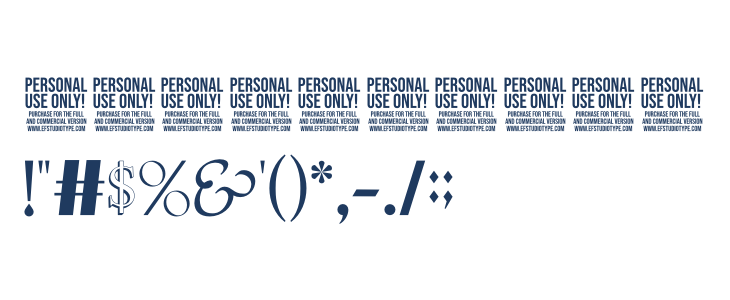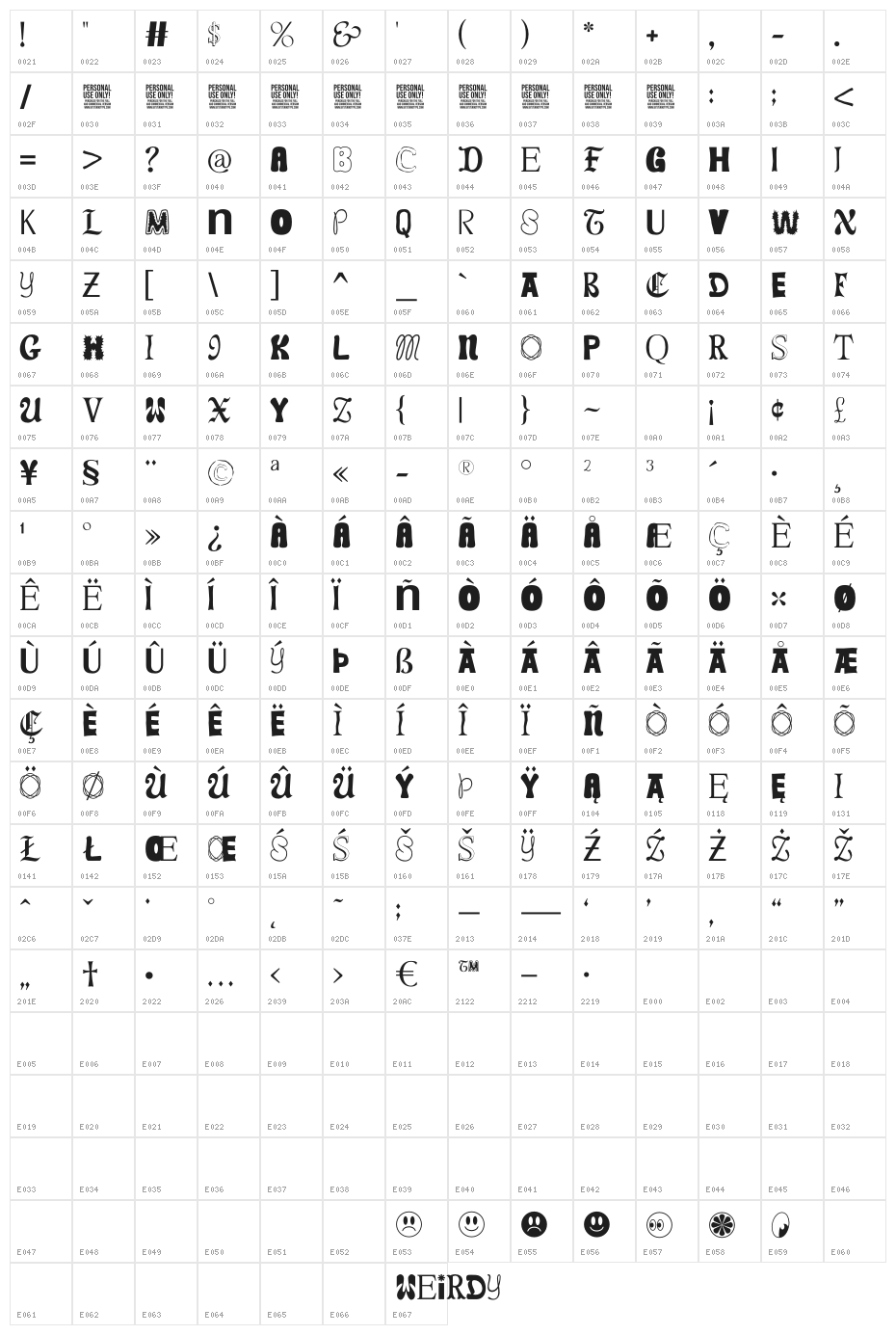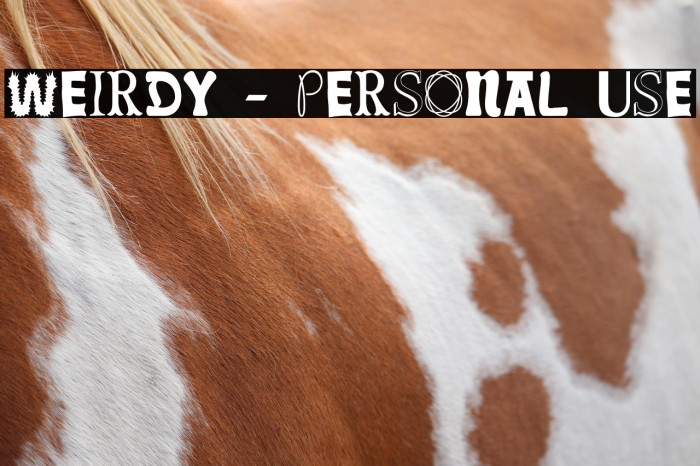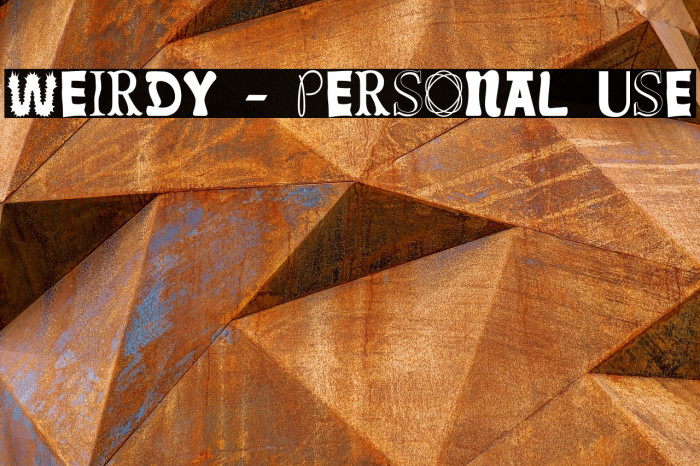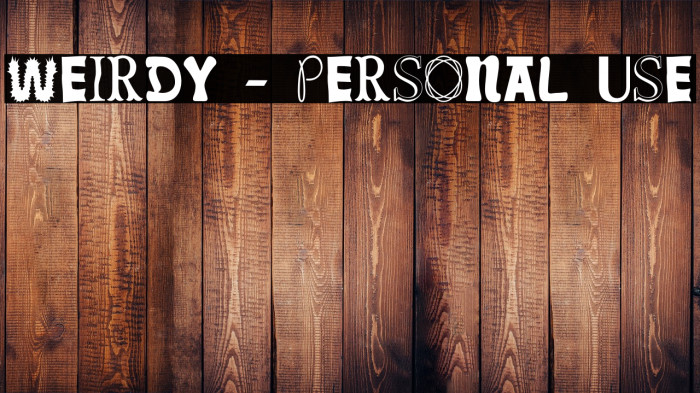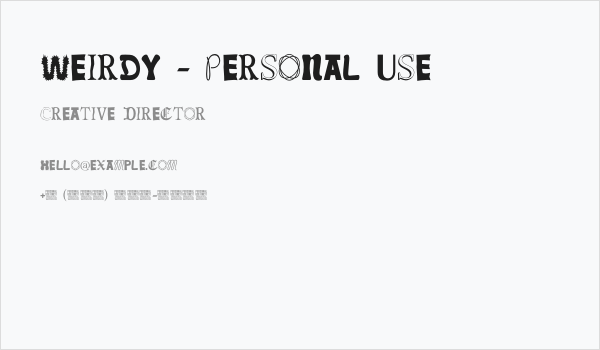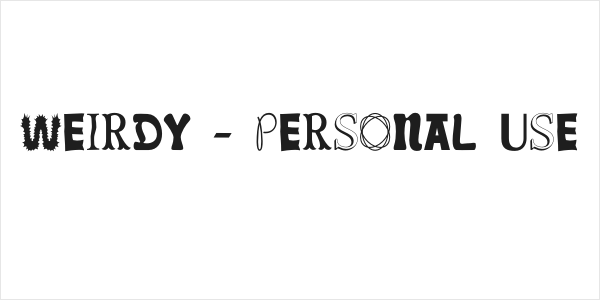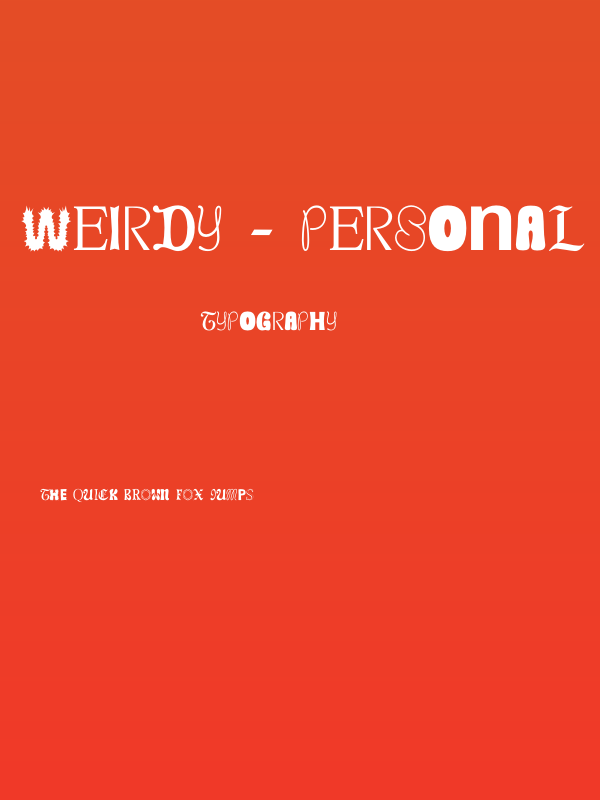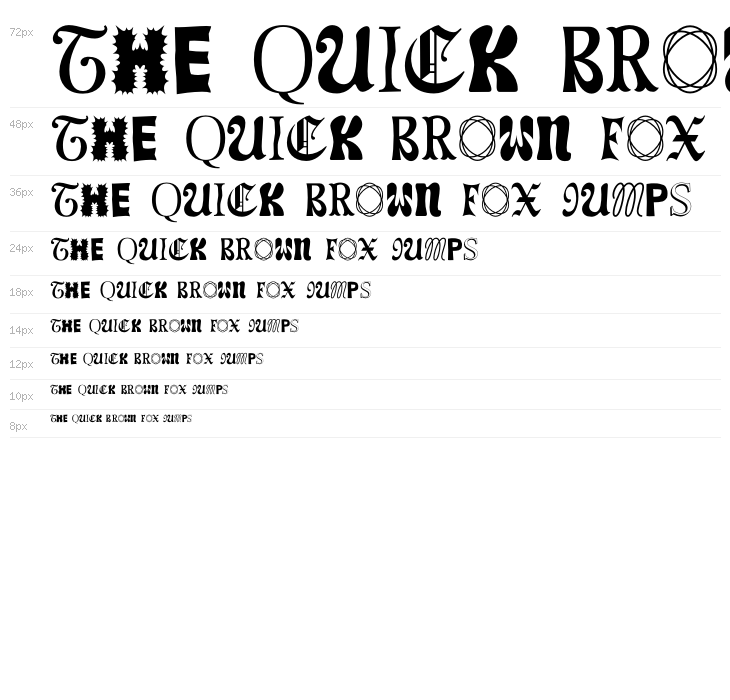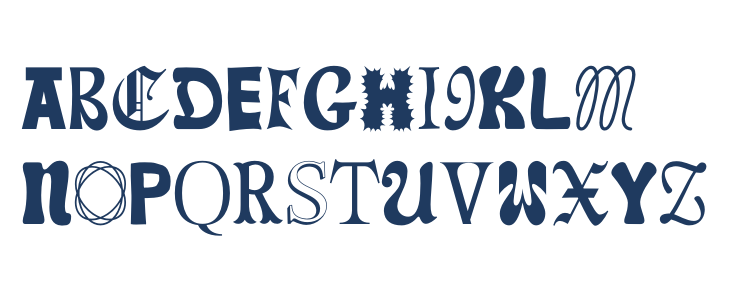
Weirdy - Personal Use Font
Weirdy - Personal Use Description
This font is a highly decorative and eclectic typeface that combines various styles and elements, creating a unique and eye-catching appearance. Each letter features distinct characteristics, with some incorporating bold, block-like shapes, while others have intricate, swirling details. The uppercase letters are particularly varied, with some appearing almost gothic or medieval, while others have a more modern, abstract feel. The lowercase letters continue this theme of diversity, offering a mix of playful and sophisticated designs. The numbers and special characters are equally varied, adding to the font's overall whimsical and artistic vibe. This font is perfect for projects that require a bold statement or a touch of creativity.
| Proposed Projects | Ideal for creative projects such as posters, album covers, event invitations, and branding that seeks a unique and artistic flair. |